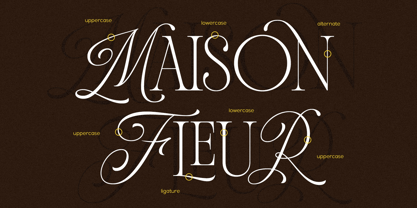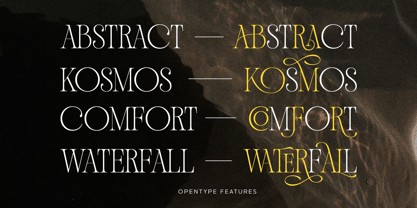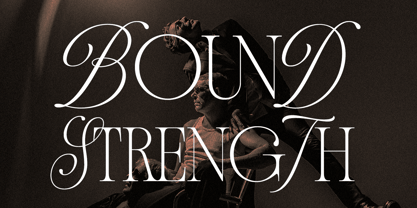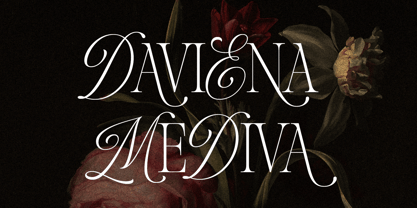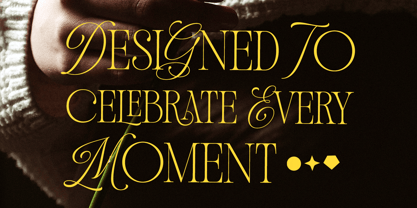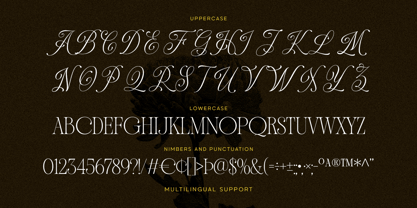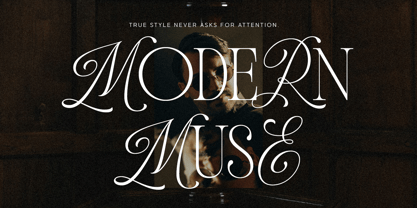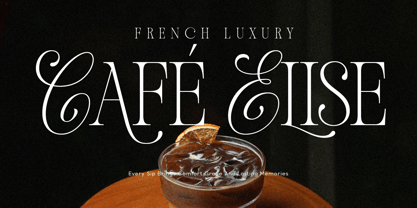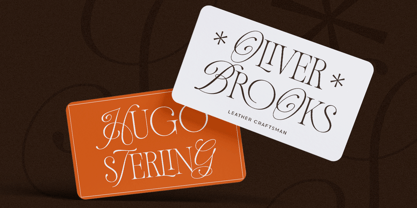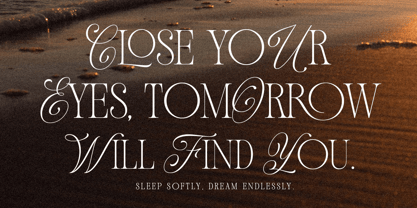
Daviena Mediva
Daviena Mediva is a modern classic hybrid font that blends the elegance of a refined serif with the soft, expressive touch of script details. The result is a typeface that feels graceful without being overdone—perfect for creating designs with a luxurious and timeless look. Whether you're working on branding, editorial layouts, wedding stationery, packaging, or social media, Andiena Bielsa adds just the right amount of character while staying clean and easy to read.
What makes Daviena Mediva stand out is its collection of carefully crafted alternates and ligatures, giving you the freedom to create lettering that feels unique and naturally flowing. Swap in alternate characters or let the ligatures do the work to build beautiful headlines, logos, and wordmarks in just a few clicks. It's a versatile font made for designers who love classic elegance with a fresh, contemporary feel.
Fonts featured :
- Uppercase (Script style)
- Lowercase (Serif style)
- Numbers & punctuations
- Symbols
- Stylistic alternates
- Stylistic set 01-03
- Ligatures
- Multilingual support